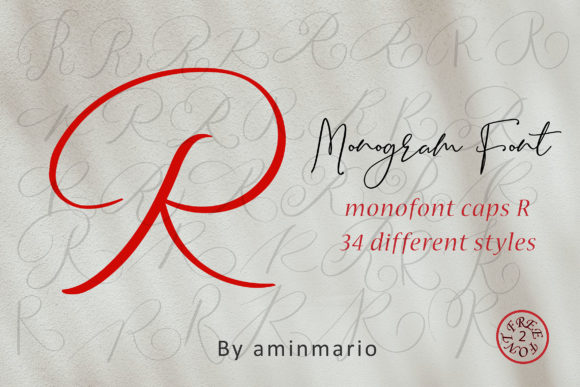
Monogram R | Monofont Caps R Font: Elevate Your Design with Unique Handwritten Style
Are you looking for a distinctive and elegant font to enhance your design projects? Look no further than the Monogram R, also known as Monofont Caps R Font. This exceptional monogram font offers a natural handwriting style of the capital letter R in 36 different styles, perfect for creating stunning monograms. In this article, we’ll explore the features and benefits of the Monogram R font and how it can elevate your designs.
What is Monogram R Font?
The Monogram R font is a unique and versatile font designed specifically for creating monograms. It features 36 different styles of the capital letter R, each with its own distinct character and flair. This font is not intended for writing words or sentences but is perfect for creating eye-catching monograms that will make your designs stand out.
Key Features of Monogram R Font
- 36 Different Styles: The Monogram R font offers 36 unique styles of the capital letter R, allowing you to choose the perfect one to match your design.
- Natural Handwriting Style: Each style features a natural handwriting look, giving your monograms a personal and elegant touch.
Benefits of Using Monogram R Font
The Monogram R font offers several benefits that make it an excellent choice for designers and crafters:
- Unique Designs: With 36 different styles to choose from, you can create distinctive monograms that will set your designs apart.
- Elegant Look: The natural handwriting style of the font adds an elegant touch to your monograms, making them perfect for various design projects.
Design Ideas Using Monogram R Font
The Monogram R font is versatile and can be used in various design projects, including:
- Logo Design: Create a unique logo for your business or brand using the Monogram R font.
- Stationery: Add a personal touch to your stationery, such as greeting cards, invitations, and letters.
- Fabric Design: Use the font to create custom fabric designs for clothing, home decor, or accessories.
- Digital Art: Incorporate the Monogram R font into your digital art projects, such as illustrations, graphics, and paintings.
Tips for Getting the Most Out of Monogram R Font
To maximize the potential of the Monogram R font, consider the following tips:
- Experiment with Colors: Try pairing your monogram with different colors and textures to create a unique look.
- Mix and Match: Combine the Monogram R font with other fonts, such as the bonus fonts, to create interesting and dynamic designs.
- Pay Attention to Details: Ensure that your monogram is legible and visually appealing by paying attention to size, spacing, and placement.
The Monogram R font, also known as Monofont Caps R Font, is a valuable addition to any designer’s toolkit. With its 36 different styles, natural handwriting look, and bonus fonts, this monogram font offers endless possibilities for creating stunning designs. Whether you’re a professional designer or a crafty individual, the Monogram R font is sure to elevate your designs and make them stand out.